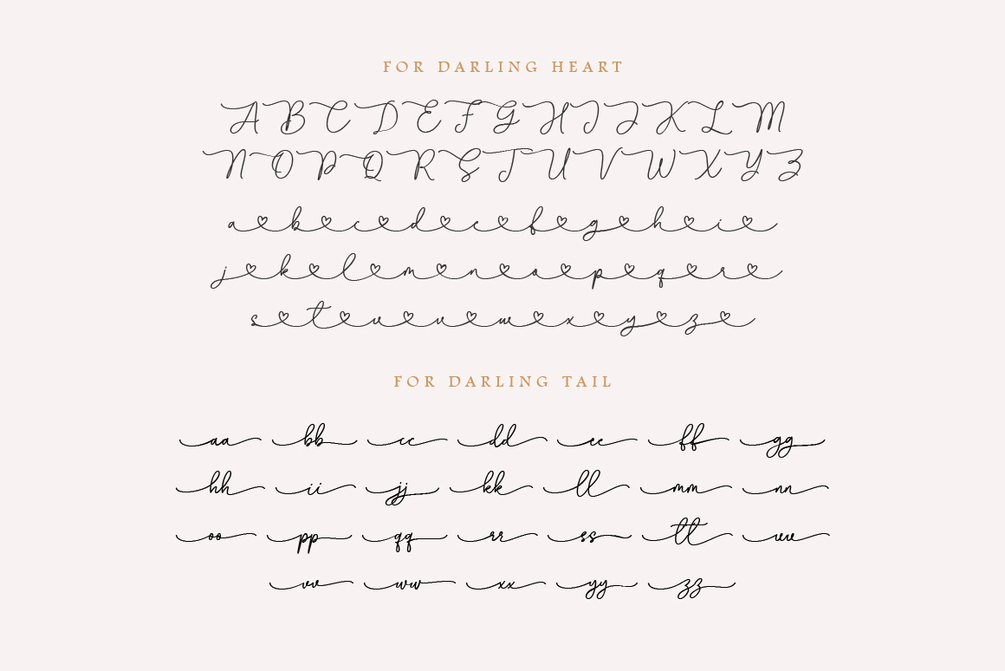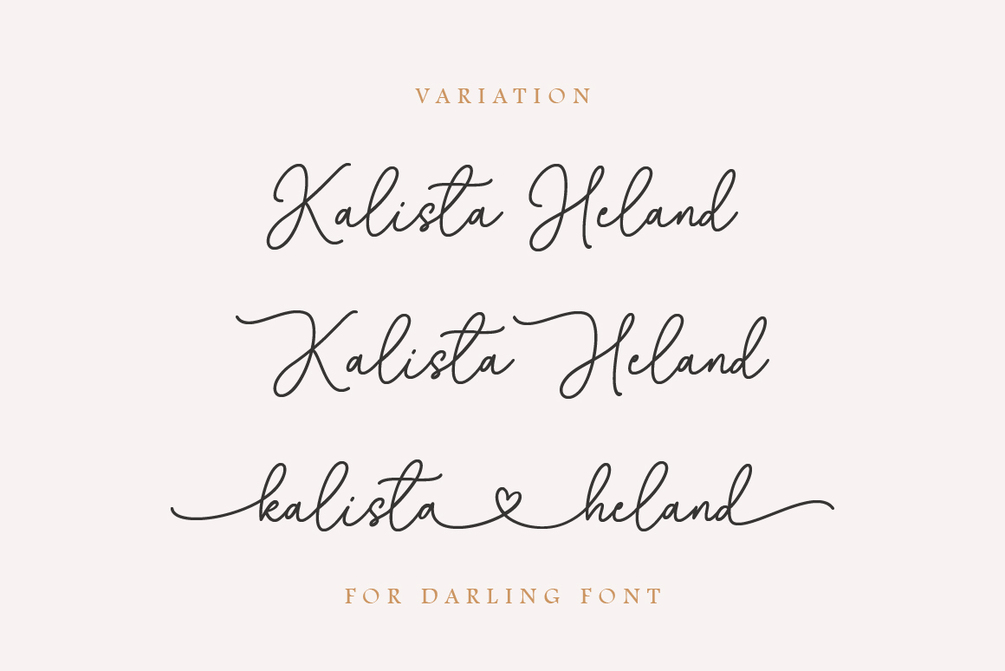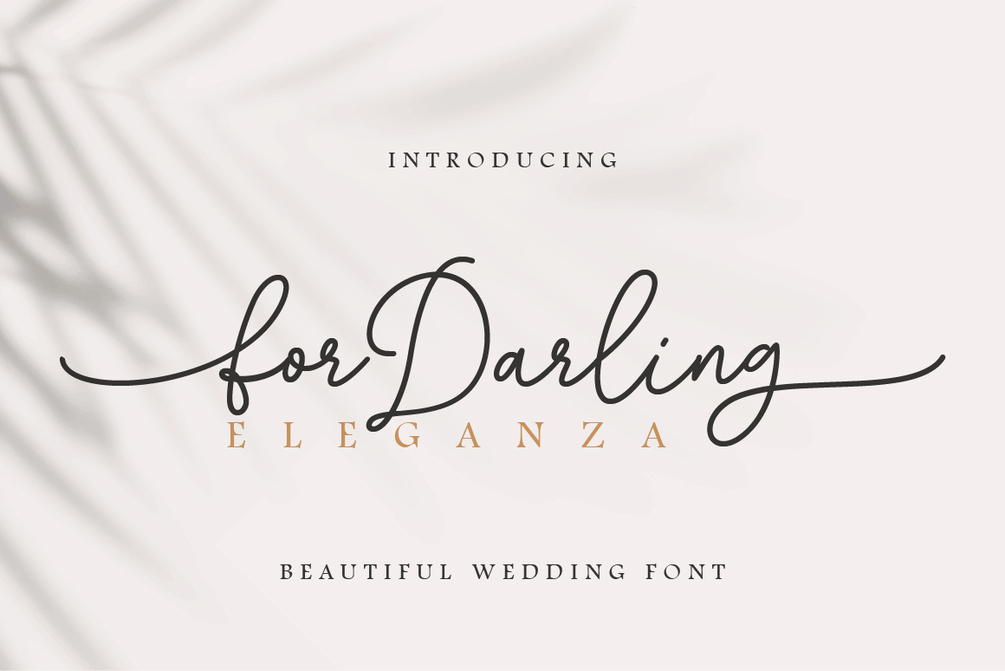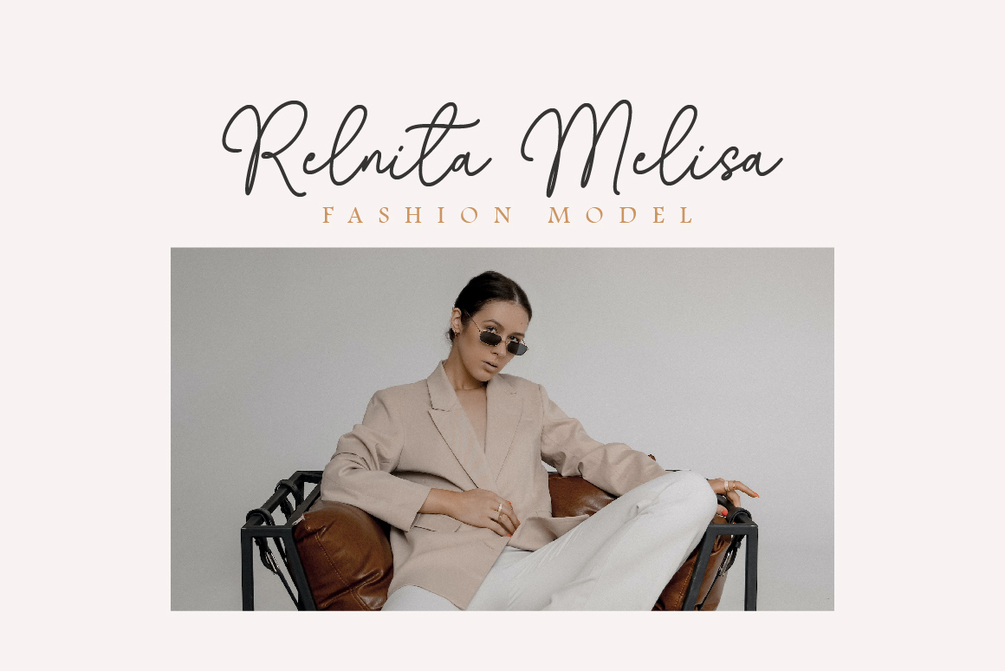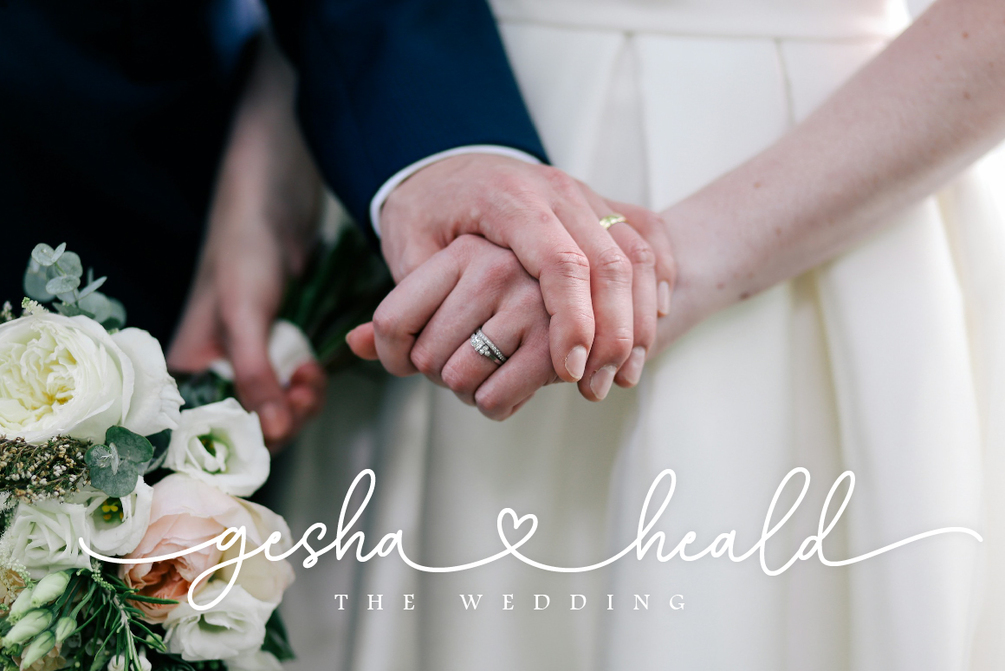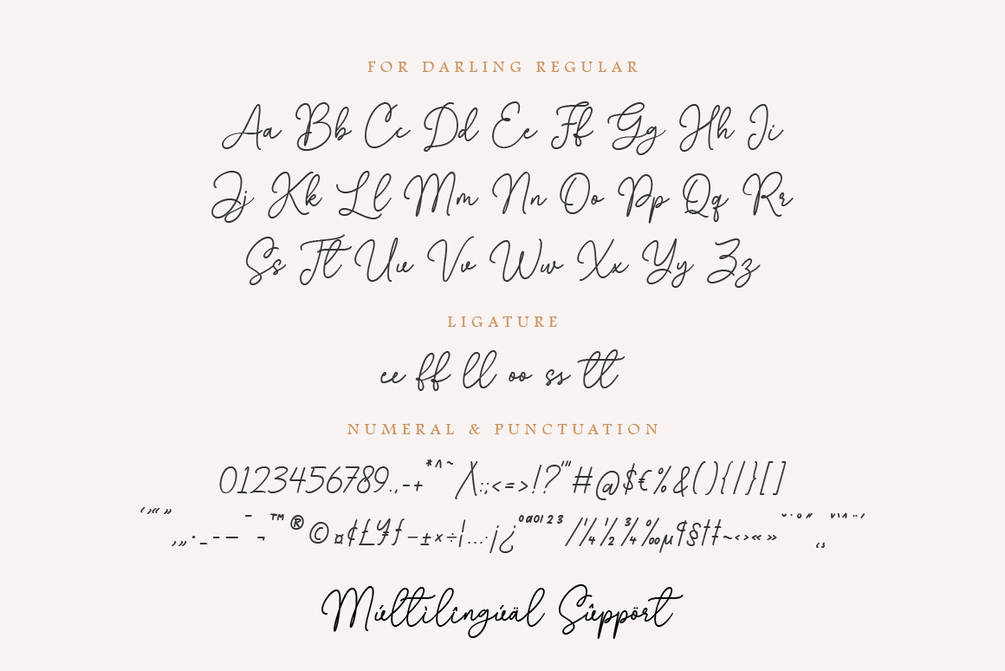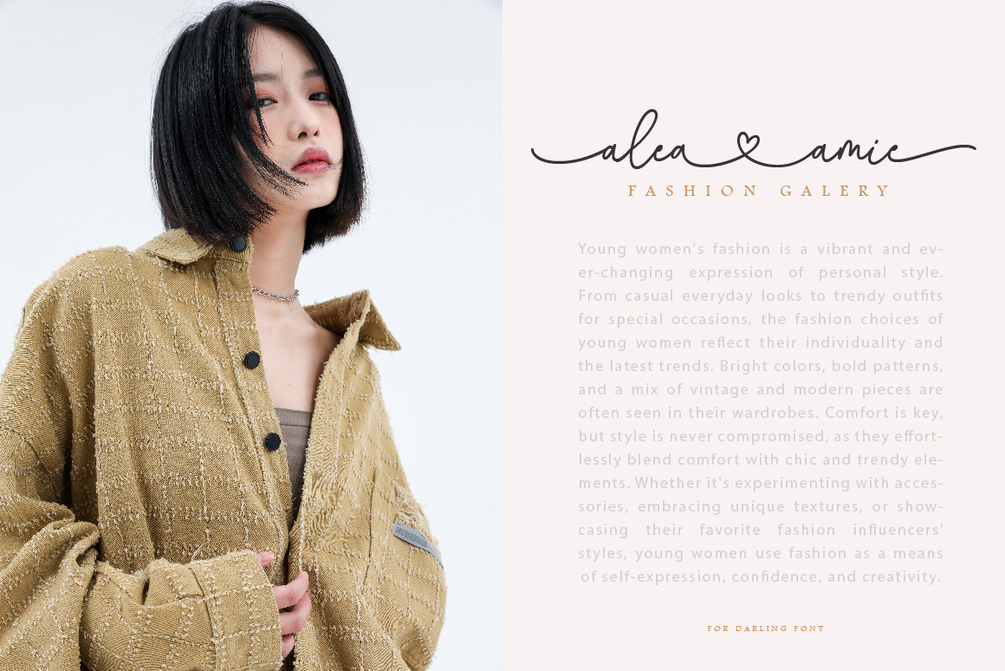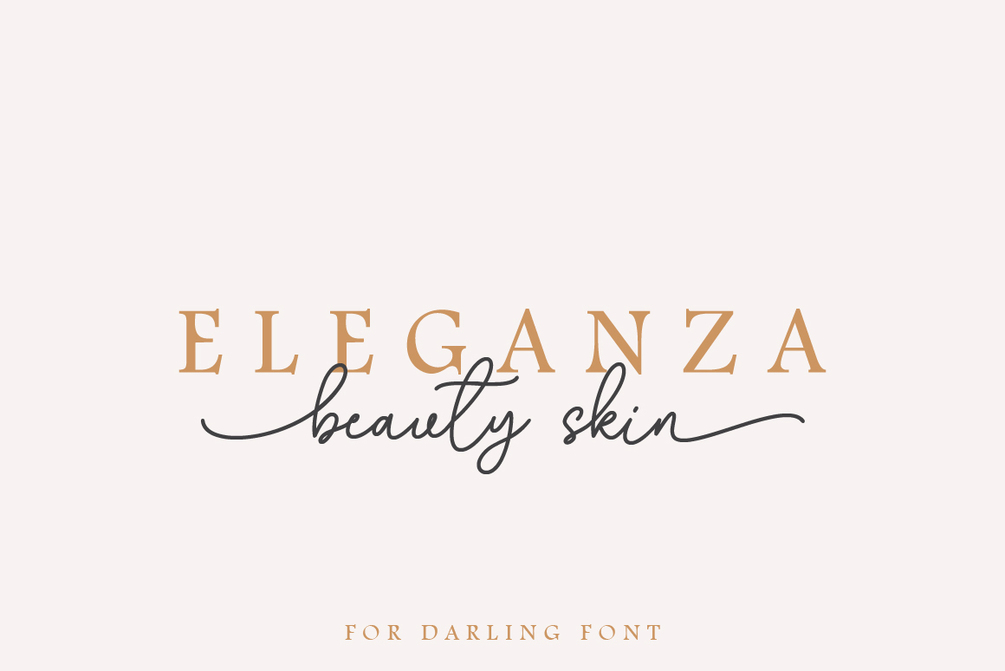
For Darling
For Darling Font is an exquisite and delicate handwritten script font that exudes elegance. It features captivating letter alternatives and enchanting tails at the beginning and end of each stroke. The font's distinctive attribute lies in its heart-shaped connecting tail, which adds a touch of romance and charm.